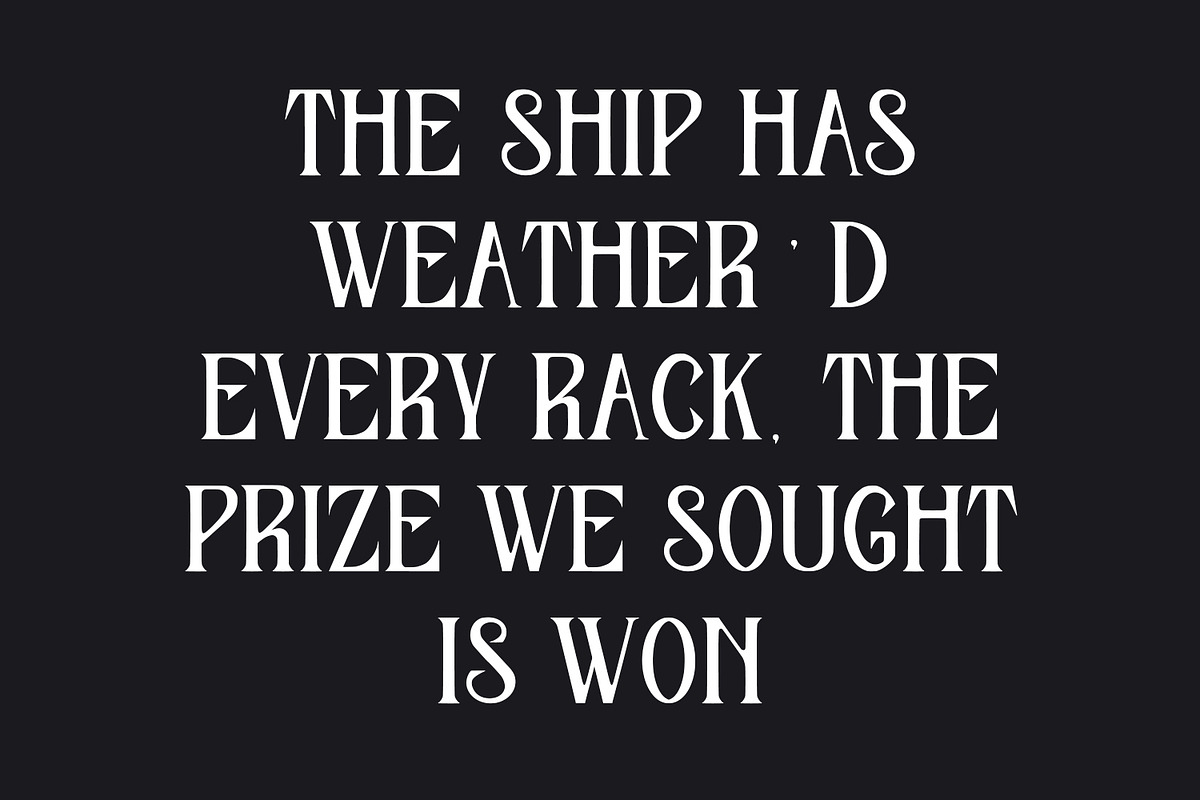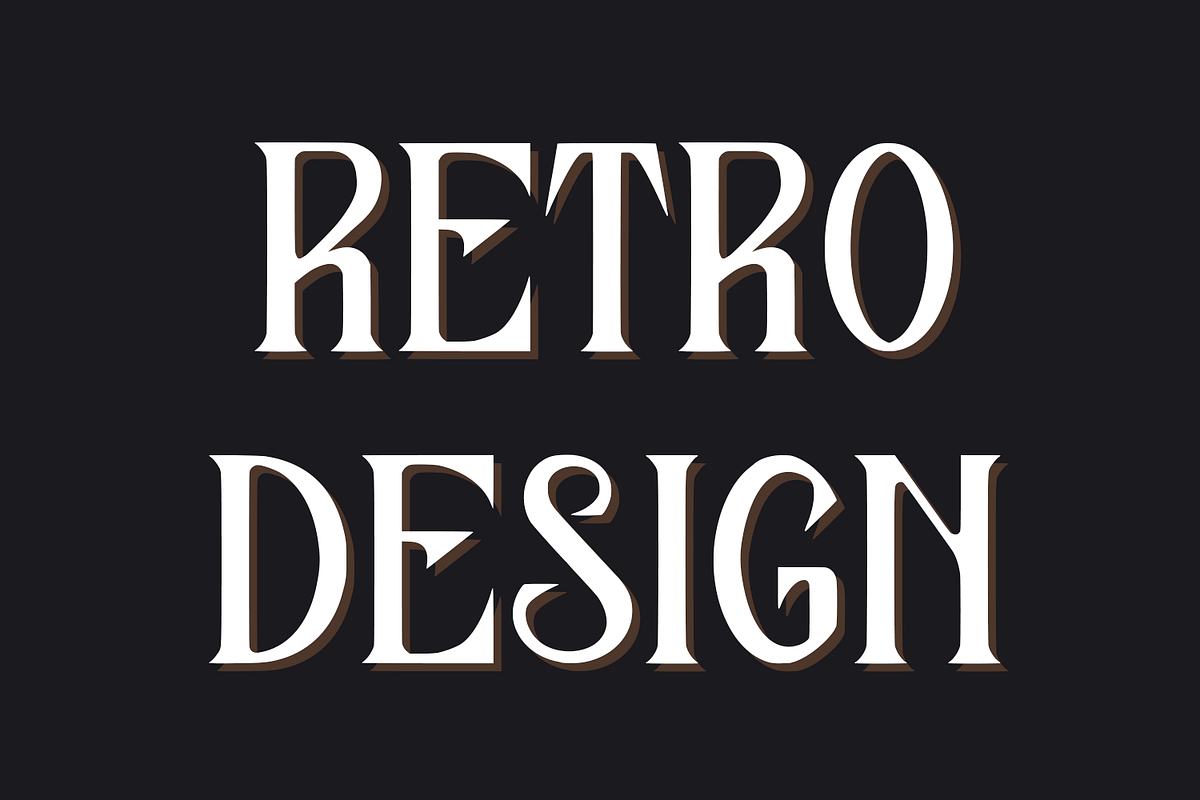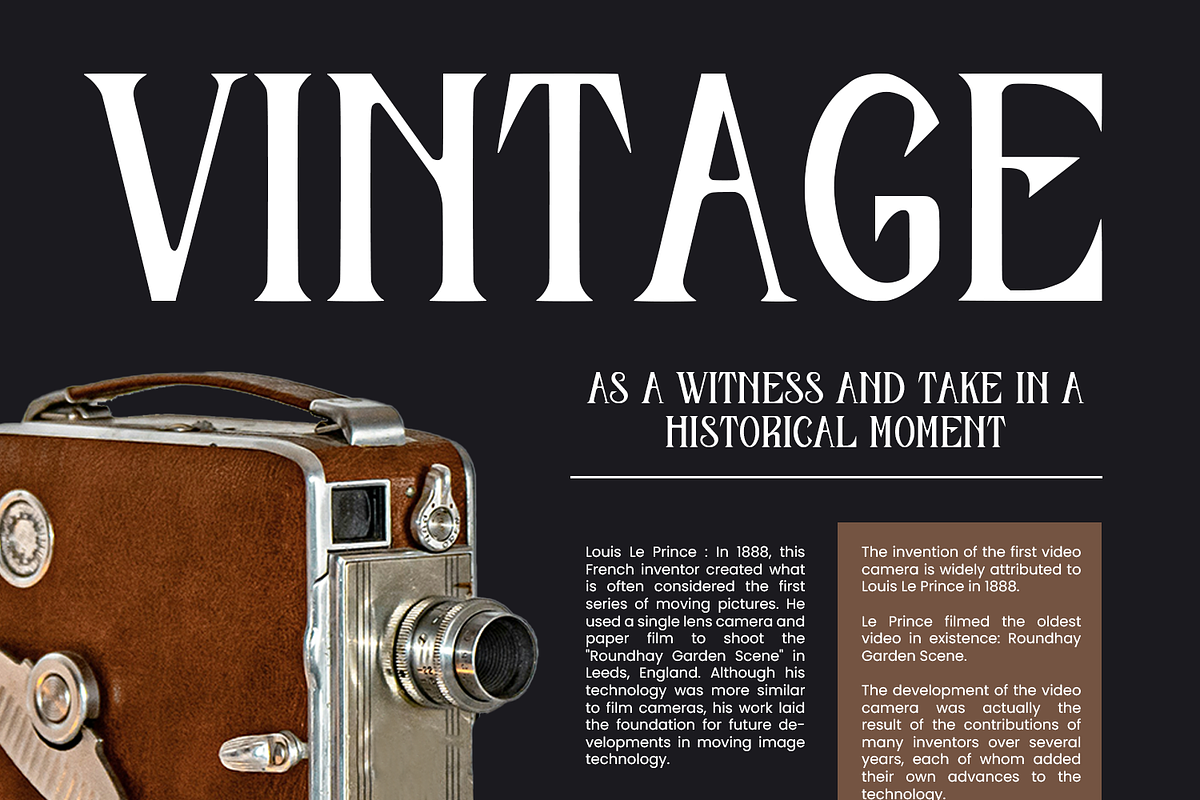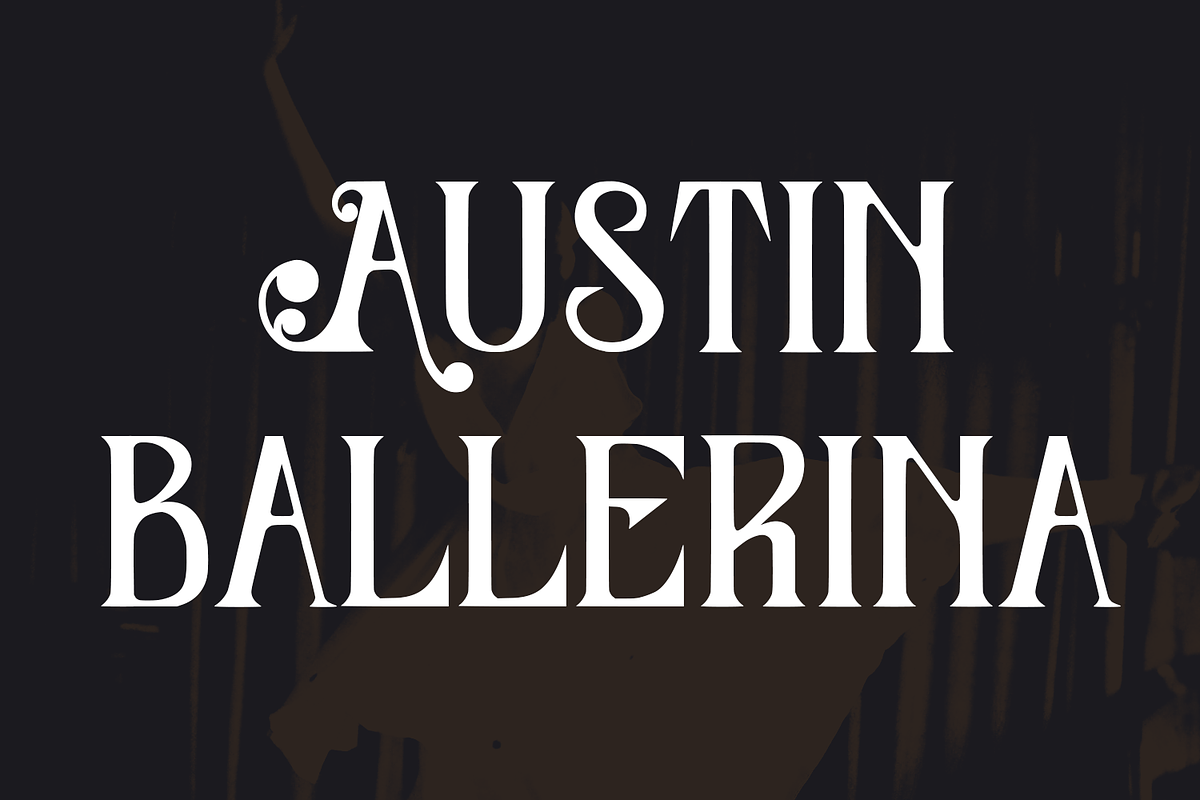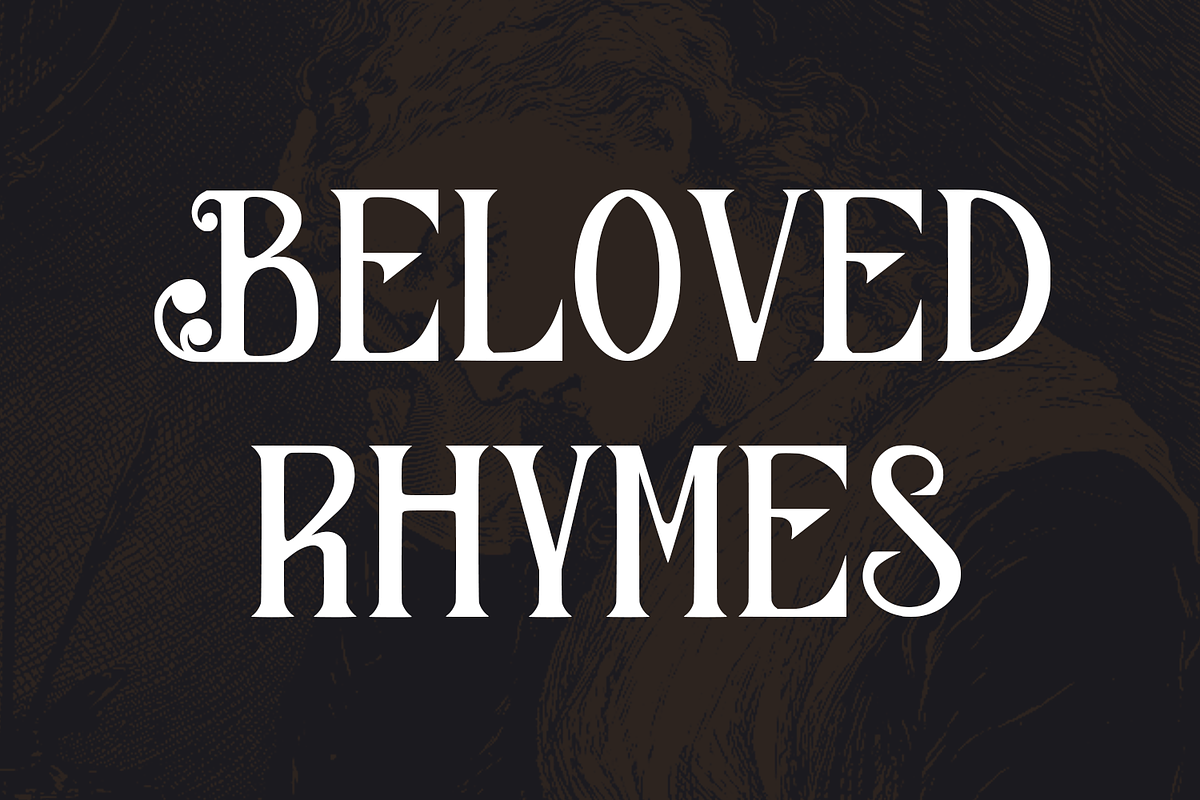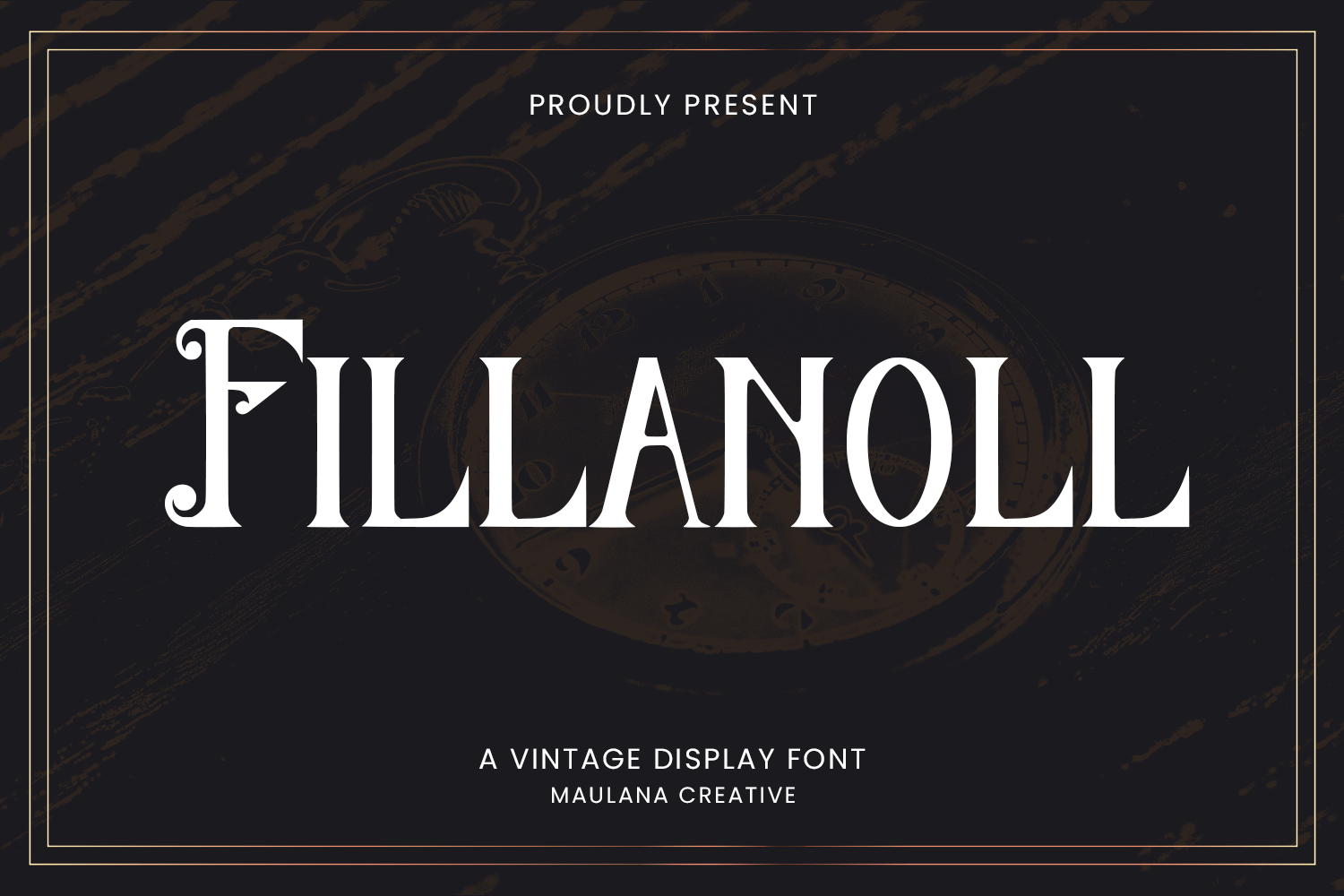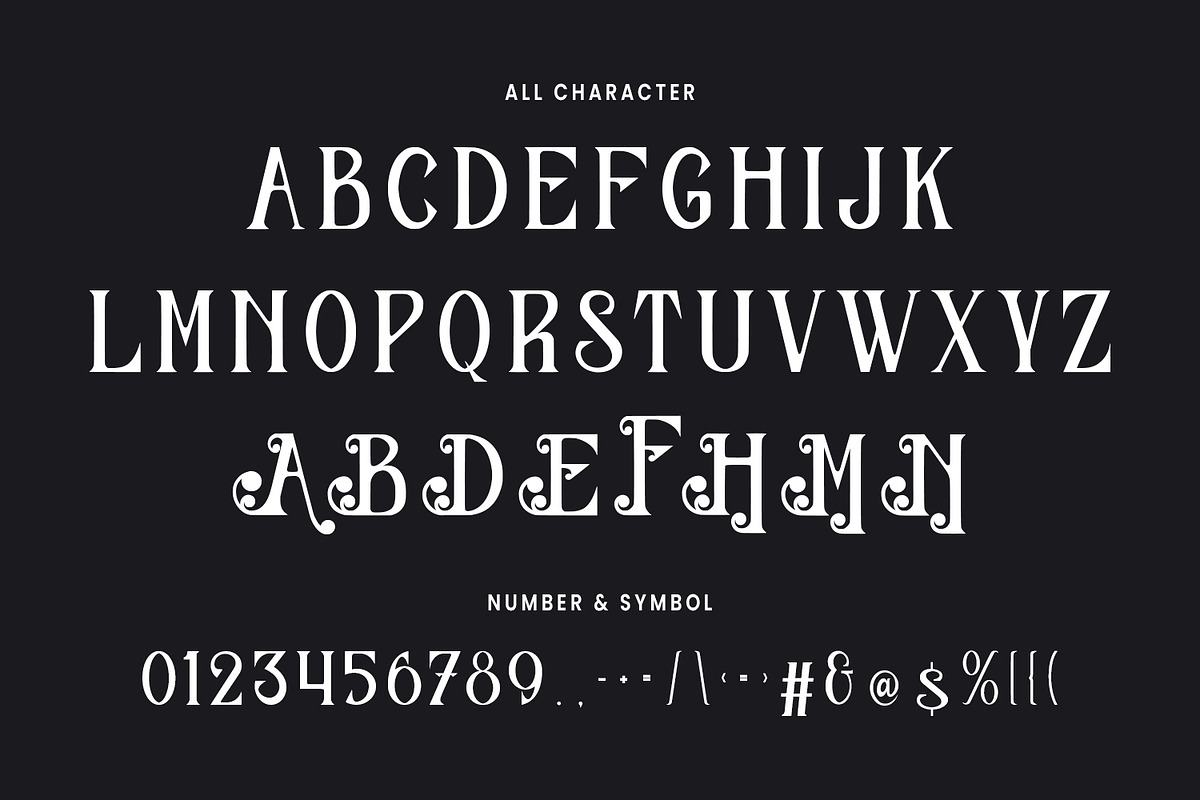
Fillanoll Vintage Display Font
Fillanoll - Vintage Display Font
Fillanoll is a vintage display handlettering, which is combining modern and classic typography with some awesome alternates. Yes we back to early 1800s, bring classic touch on this decade.